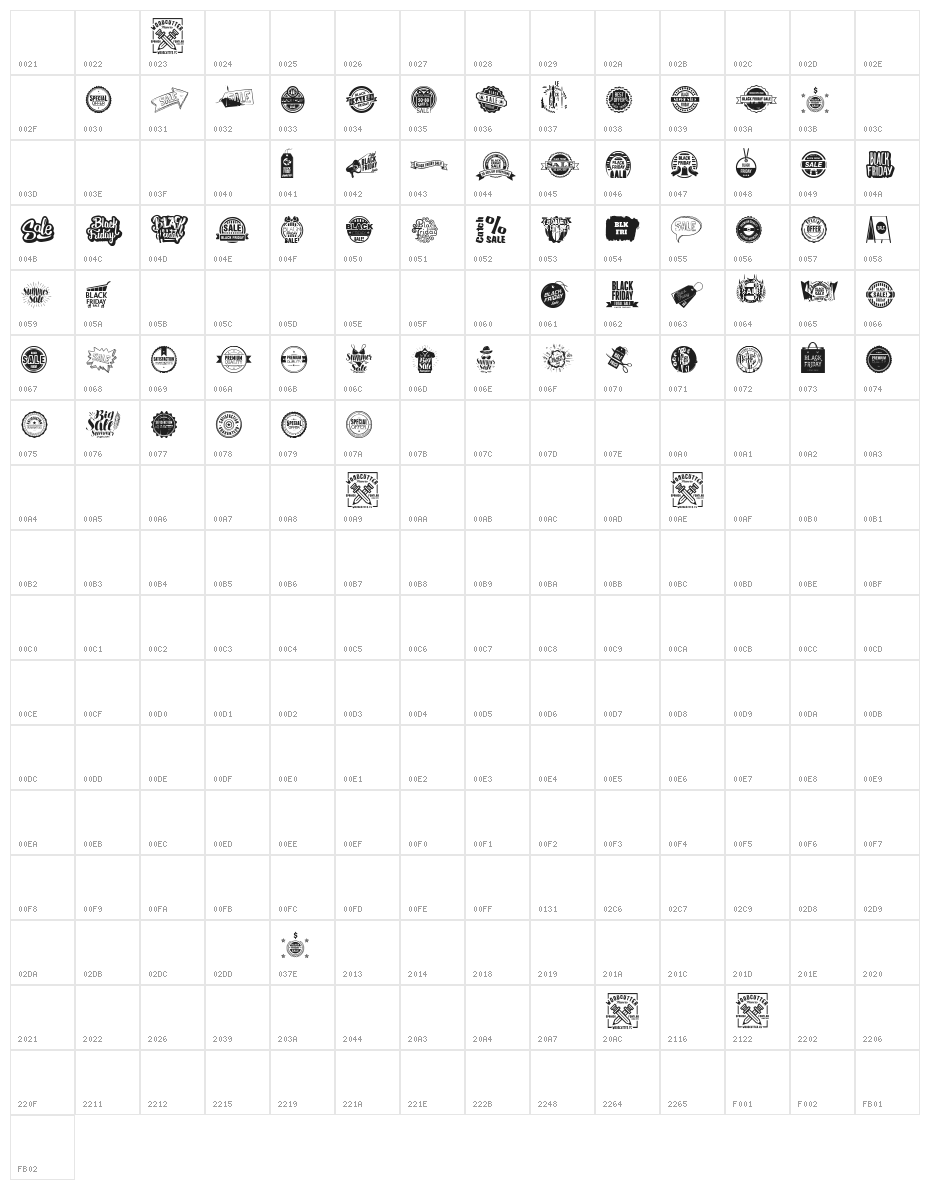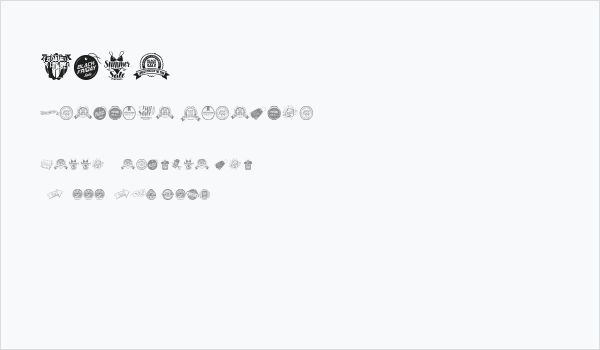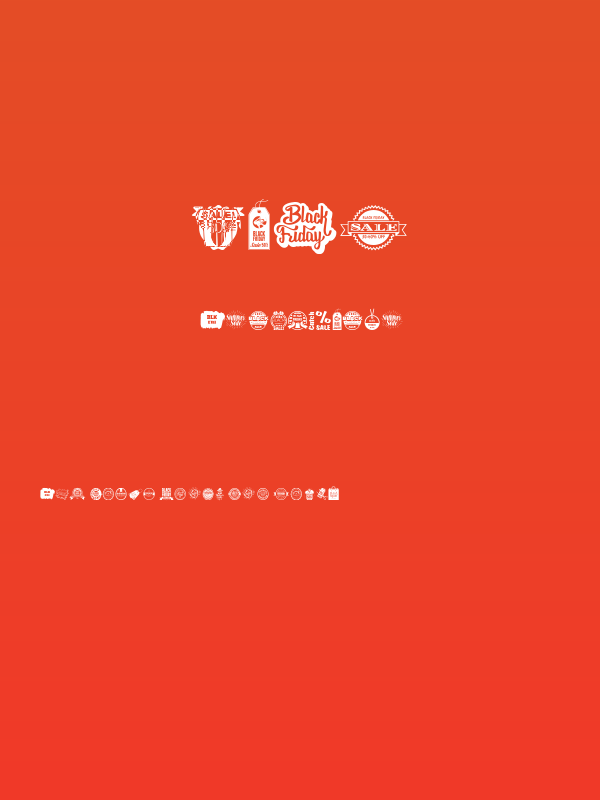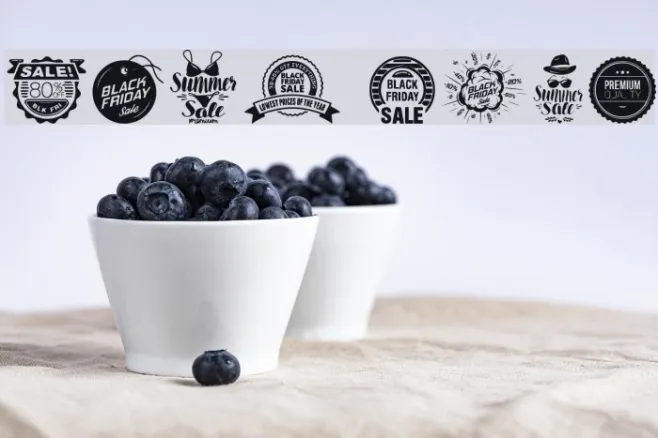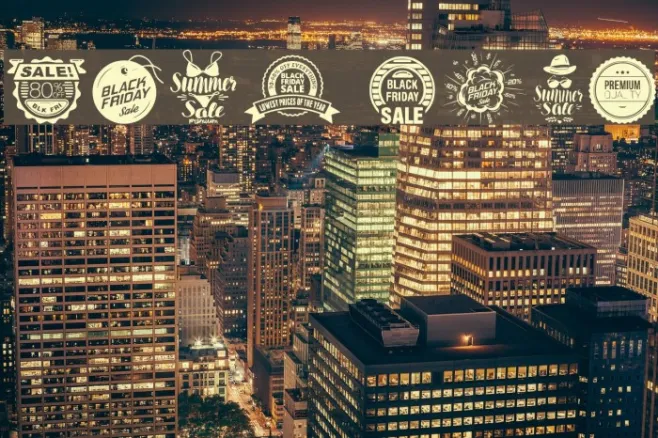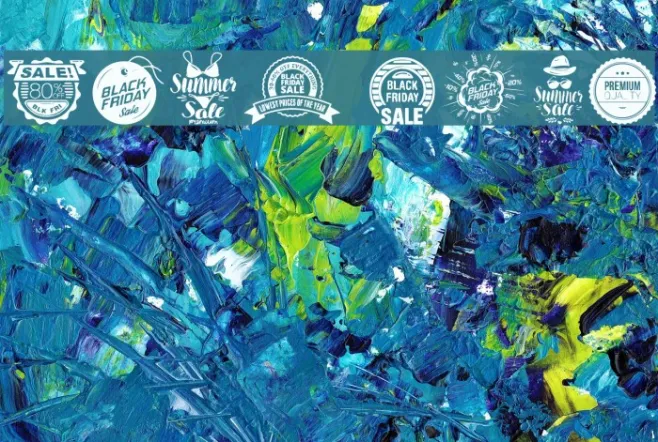
Sale Font
Sale Description
A collection of bold, decorative, and highly legible display fonts, primarily designed for promotional and sale graphics. The styles range from modern sans-serif to playful script and vintage badge-inspired designs, often using all-caps, thick strokes, and high contrast for maximum impact. Many designs incorporate banners, badges, and hand-drawn elements for added emphasis.
| Overall Style | Decorative, Modern, Vintage |
| Use Case | Headlines, Logos, Sale tags, Promotional graphics |
| Proposed Projects | Retail sale banners, Black Friday ads, promotional posters, store signage, social media sale announcements. |